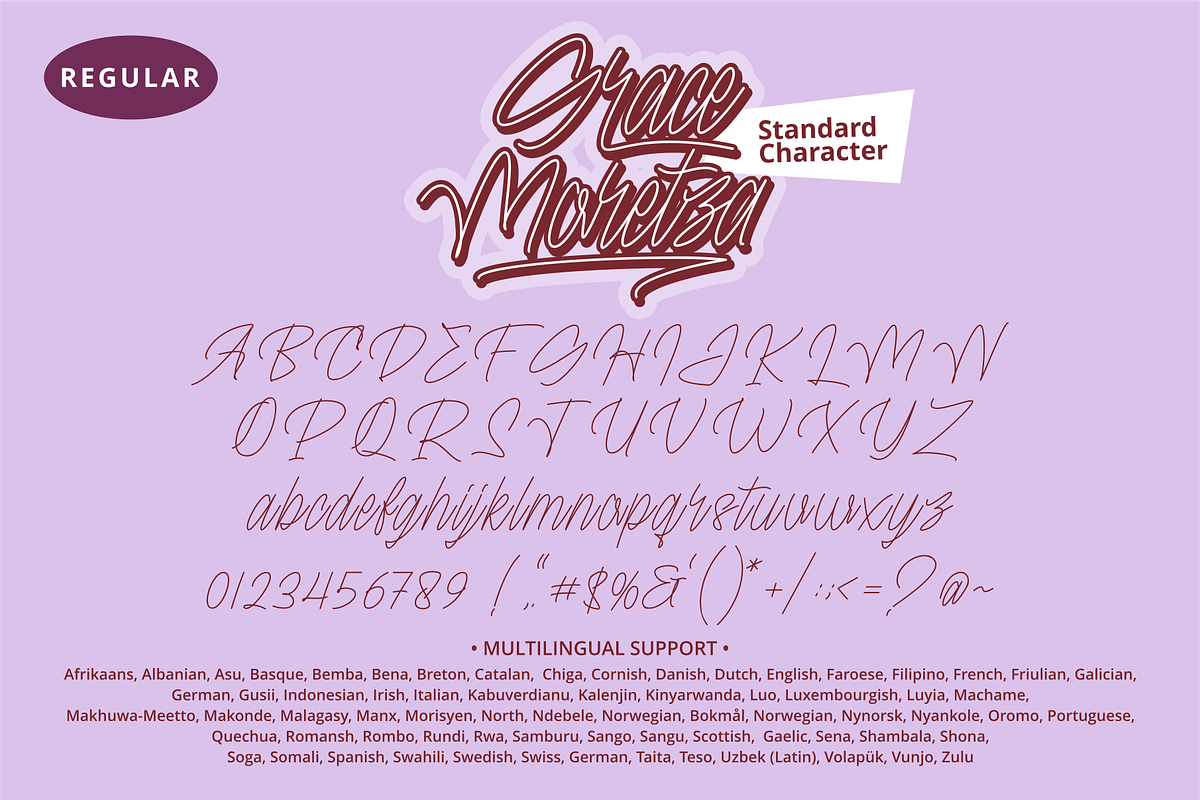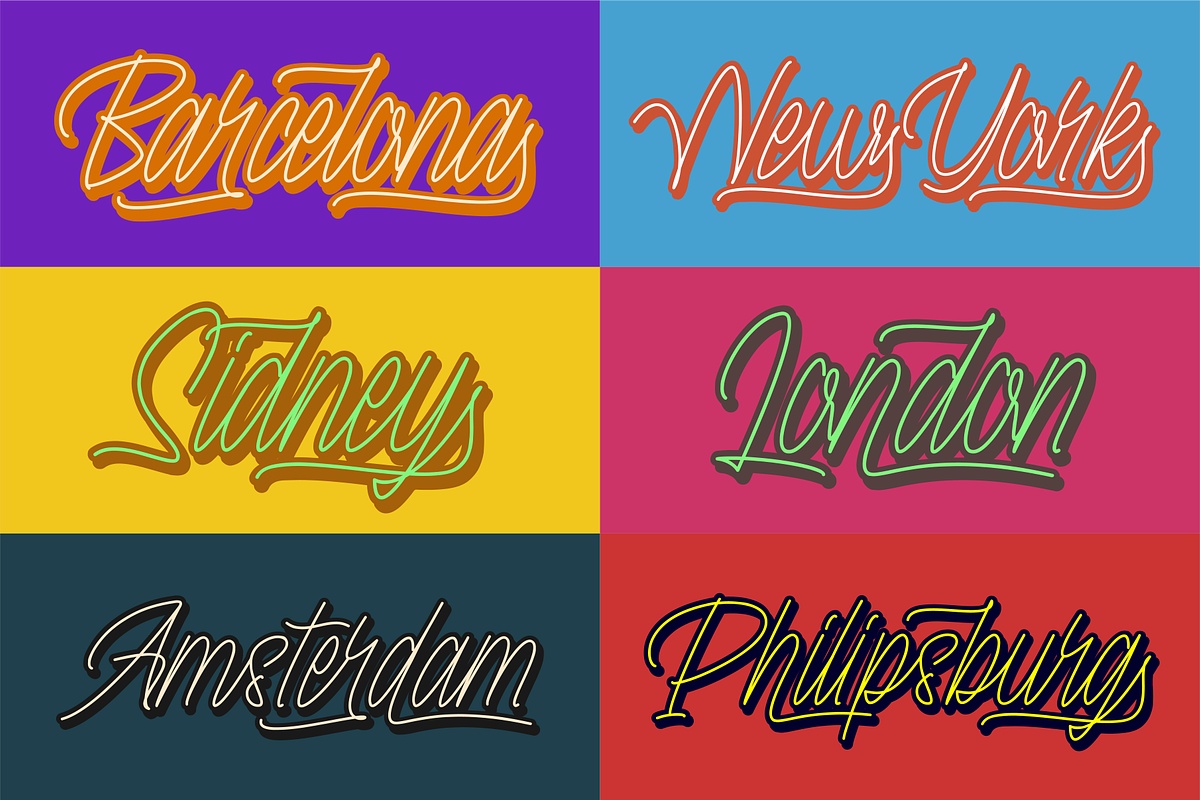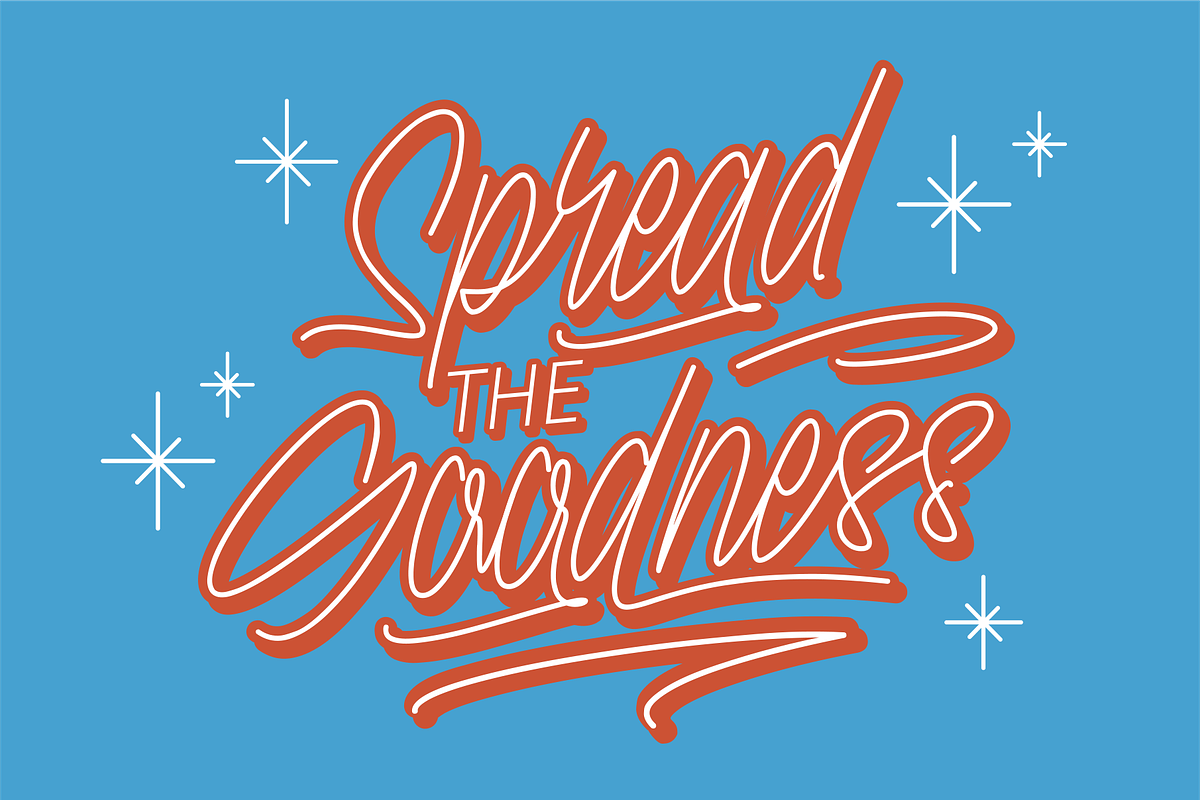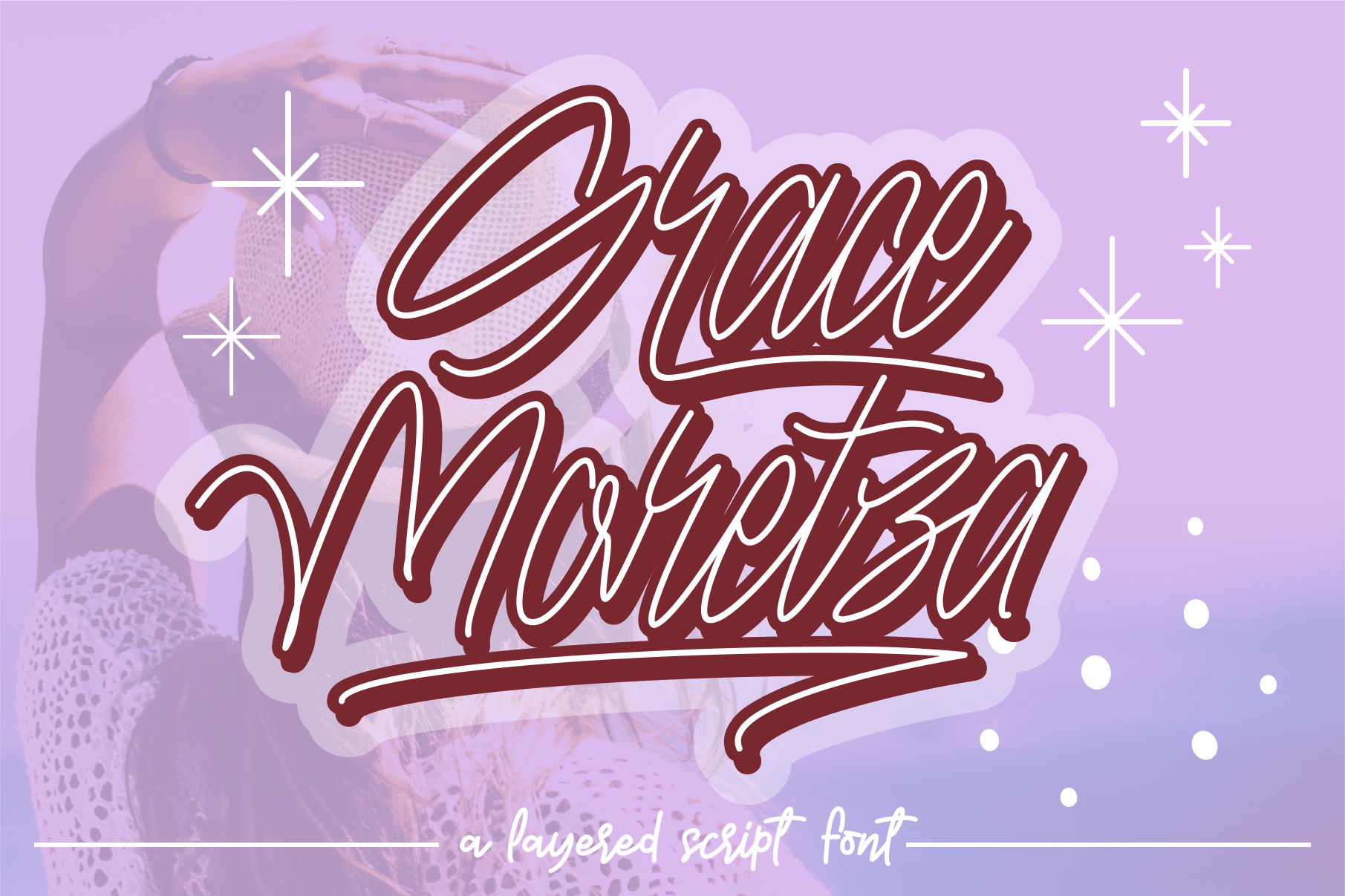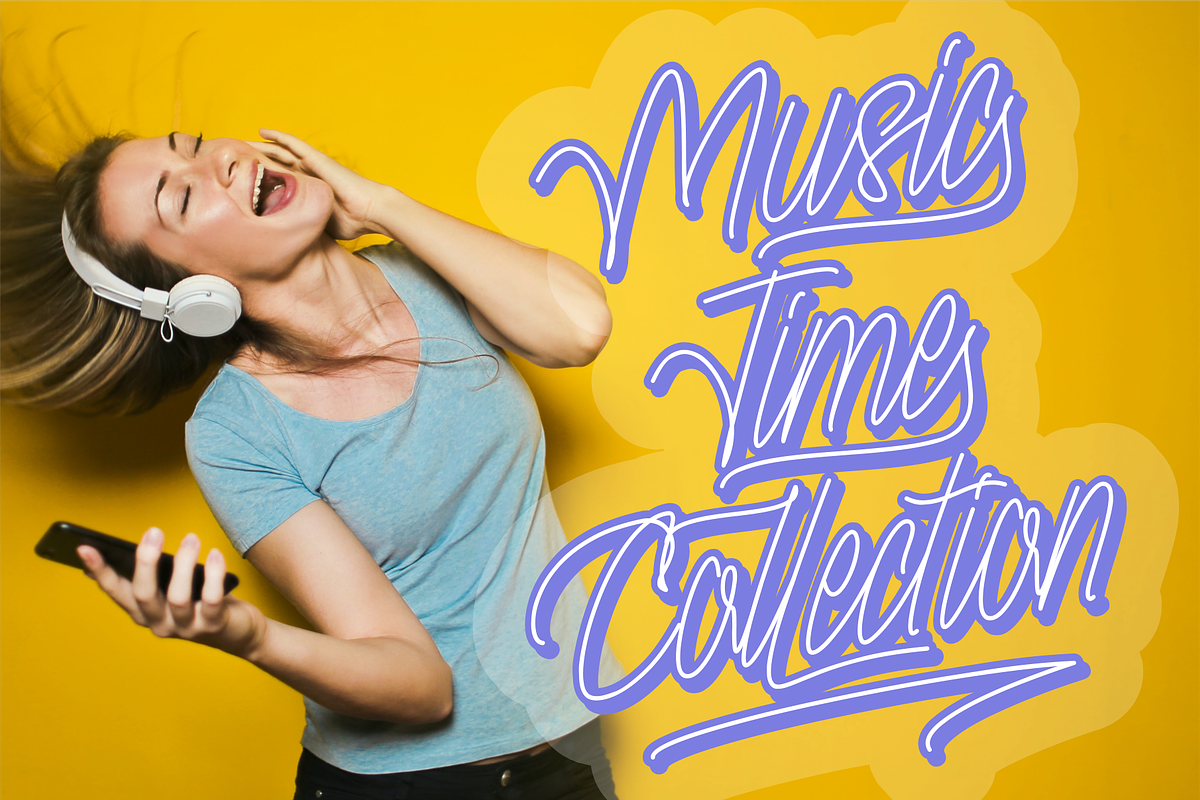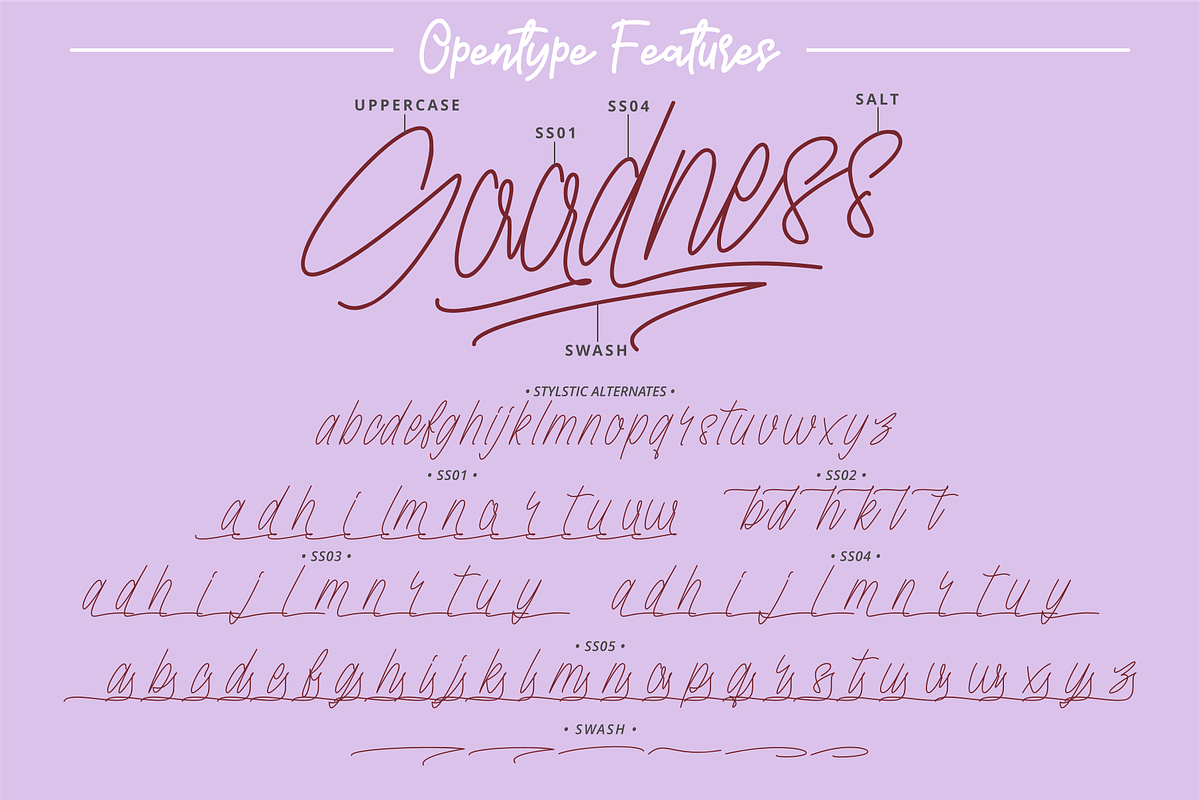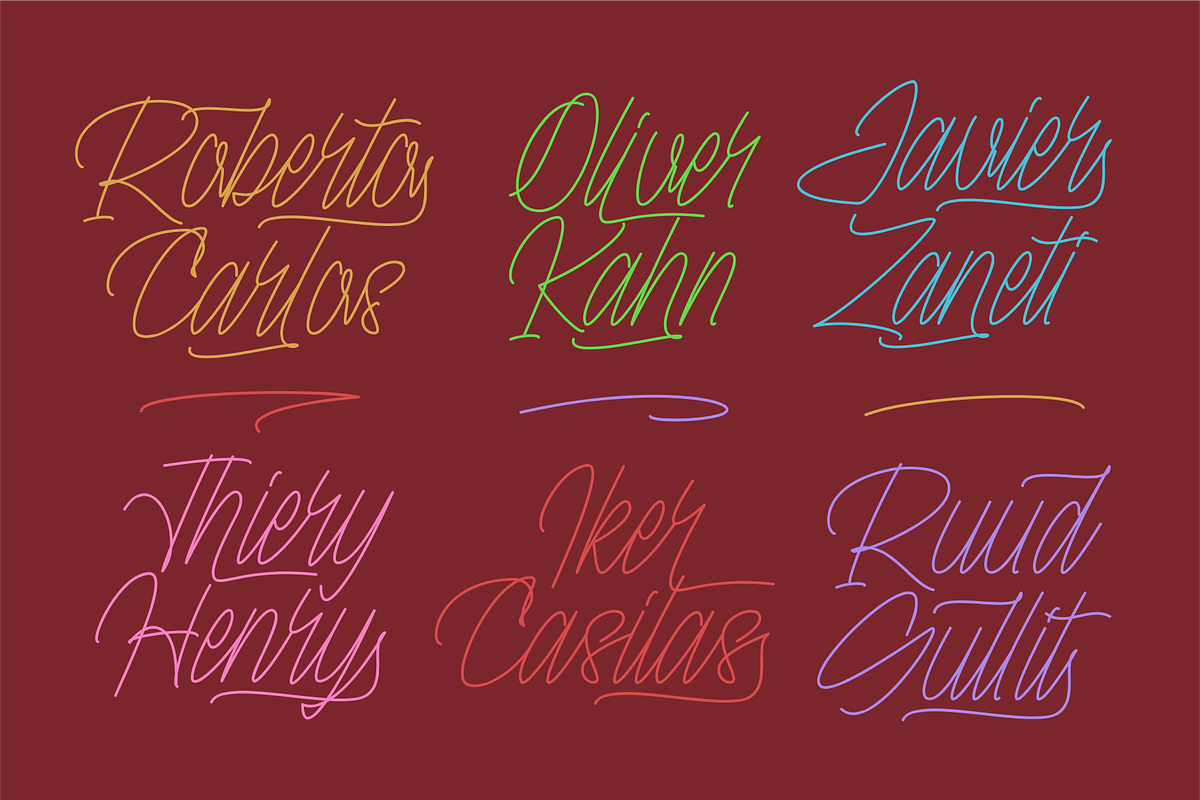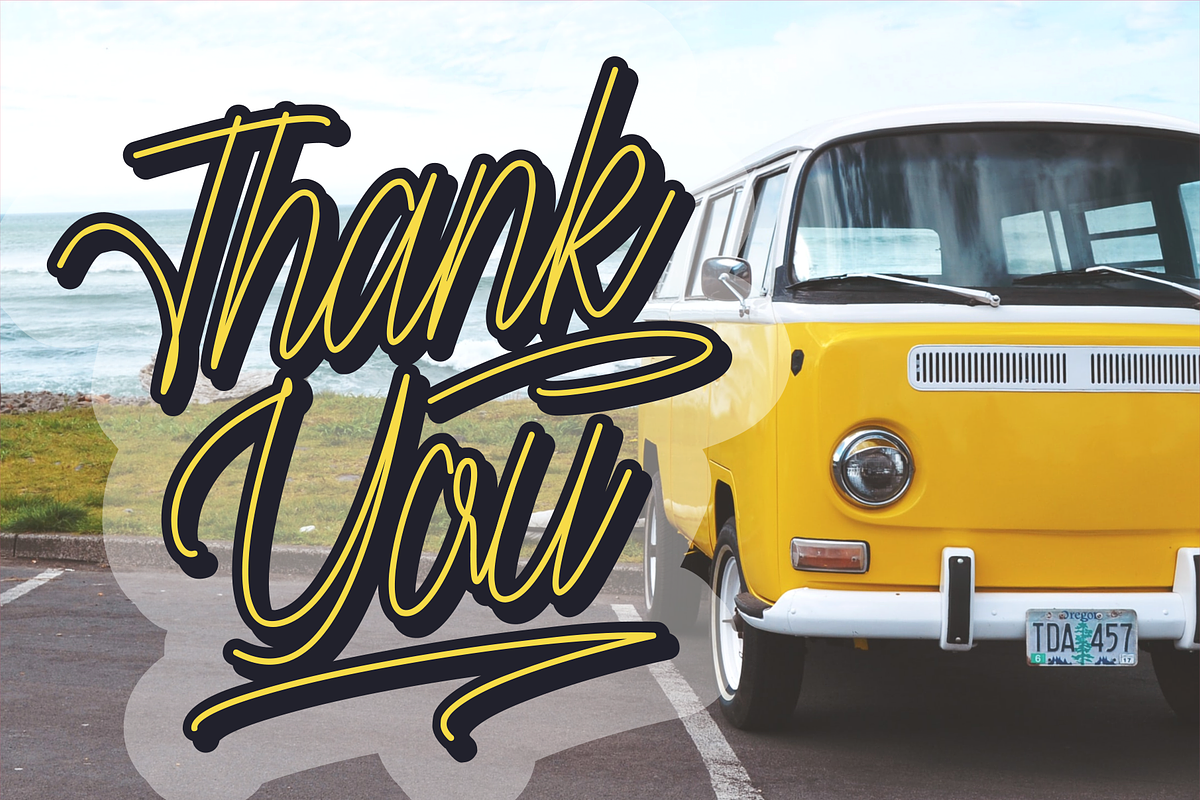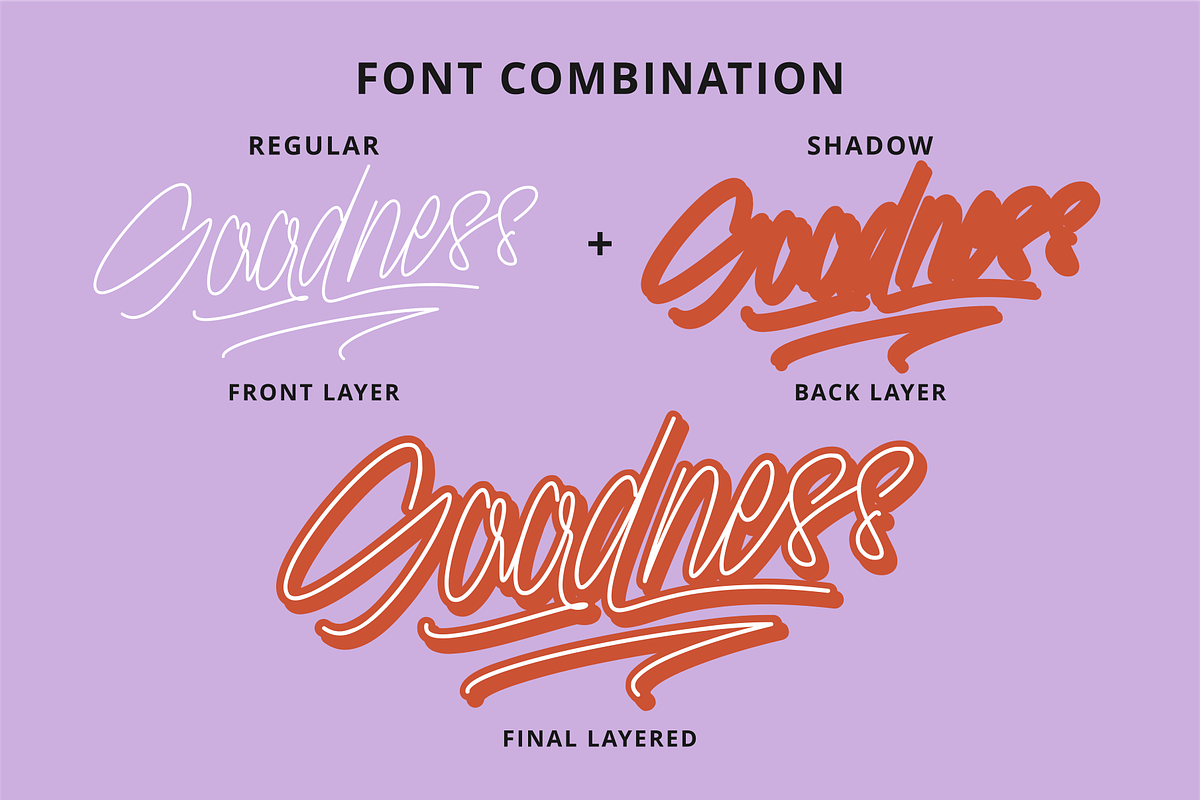
Grace Moretza Font
Grace Moretza is a handwritten layered font with a nostalgic touch. It looks breathtaking on a wide range of projects, from logos to greeting cards, branding, prints, invitations and so much more! Grace Moretza is PUA encoded, which means you can access all of the glyphs and swashes with ease!